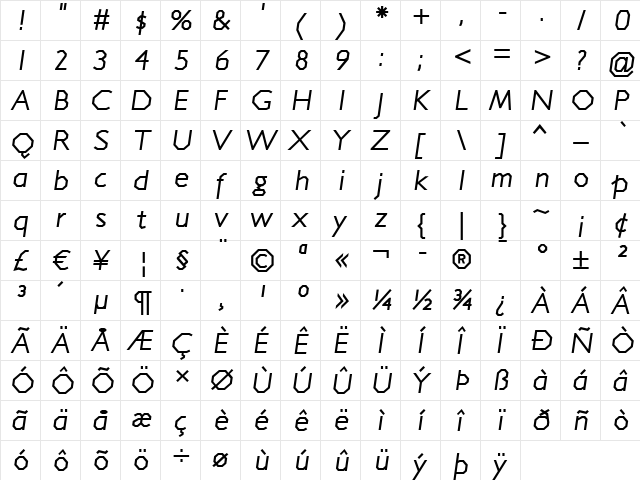
Jillican Italic
Design Context for Jillican Typeface
Jillican takes a measured approach to typography — its balanced proportions and neutral character make it a reliable workhorse for both digital and print work. The slanted form adds forward momentum and visual energy.
Pro Tip: Use Jillican for emphasis, pull quotes, and subheadings where its slanted energy can add rhythm to the layout.